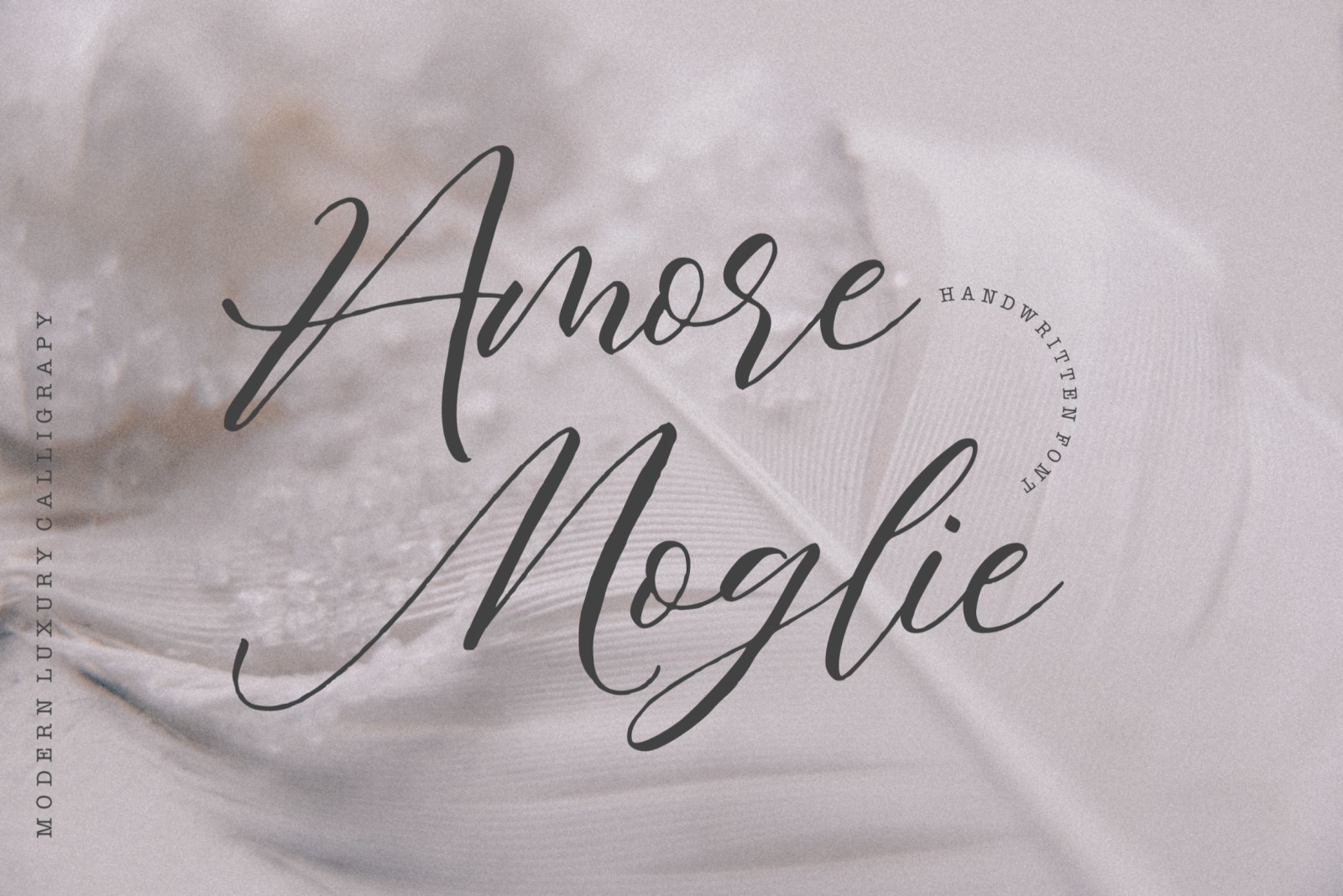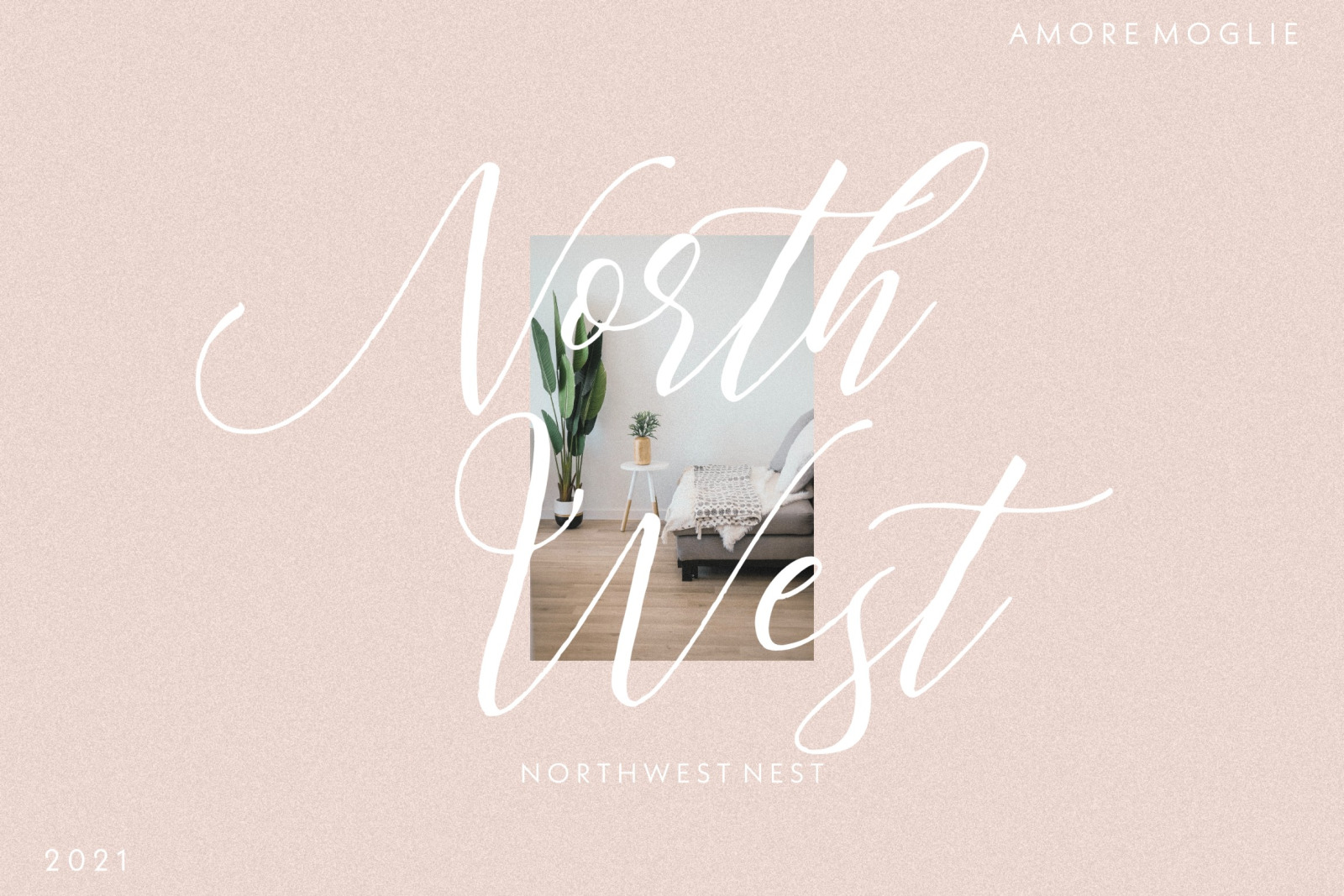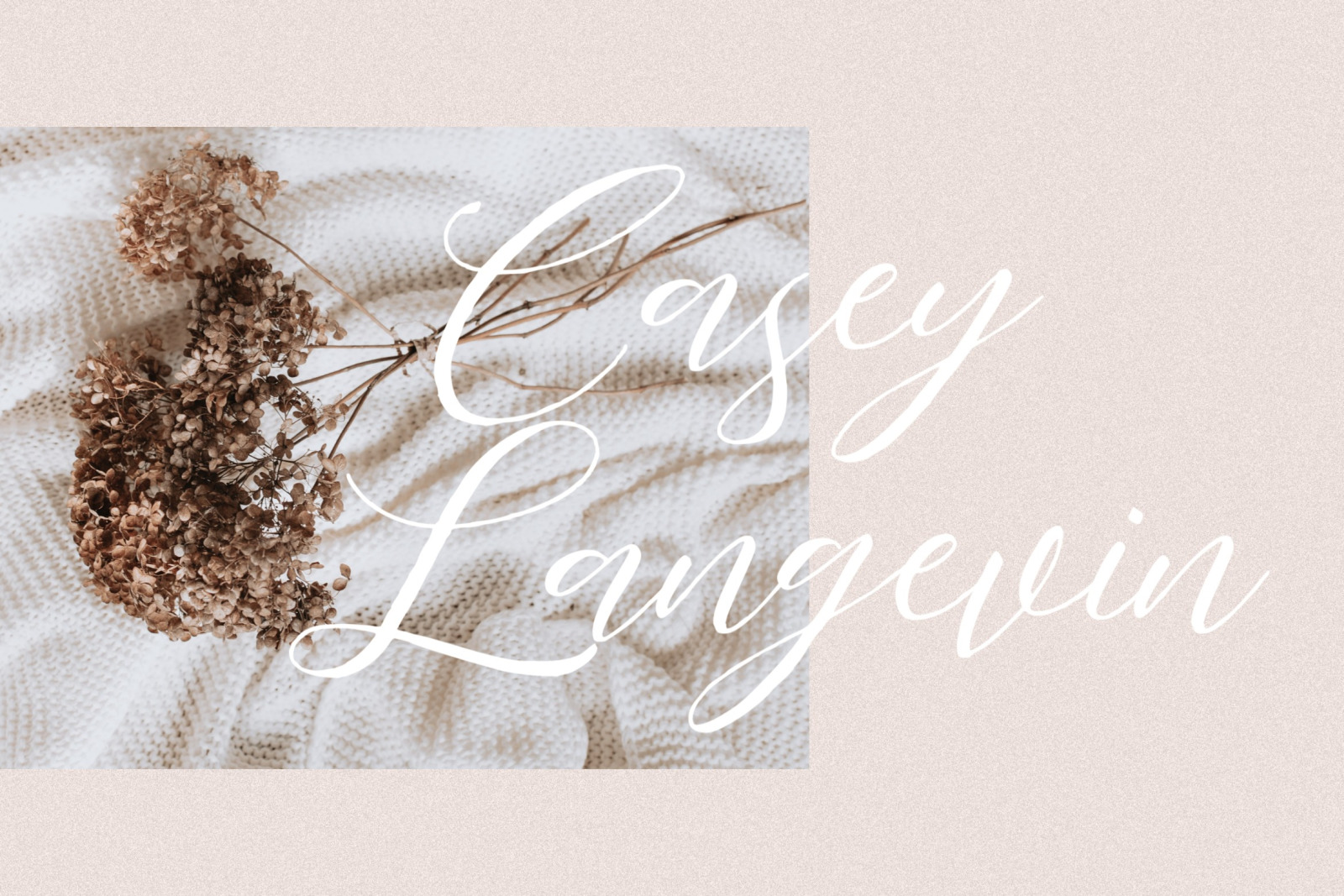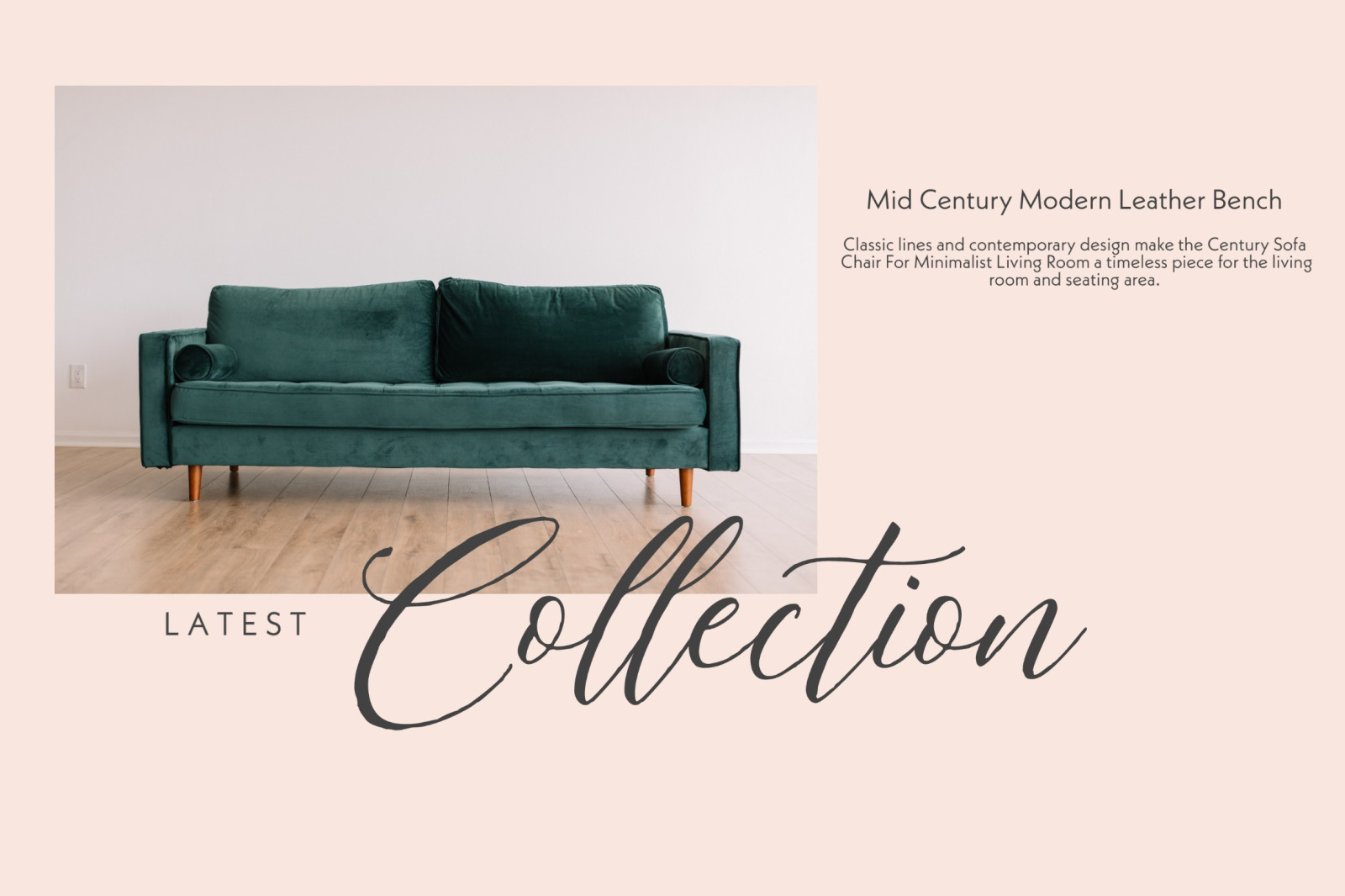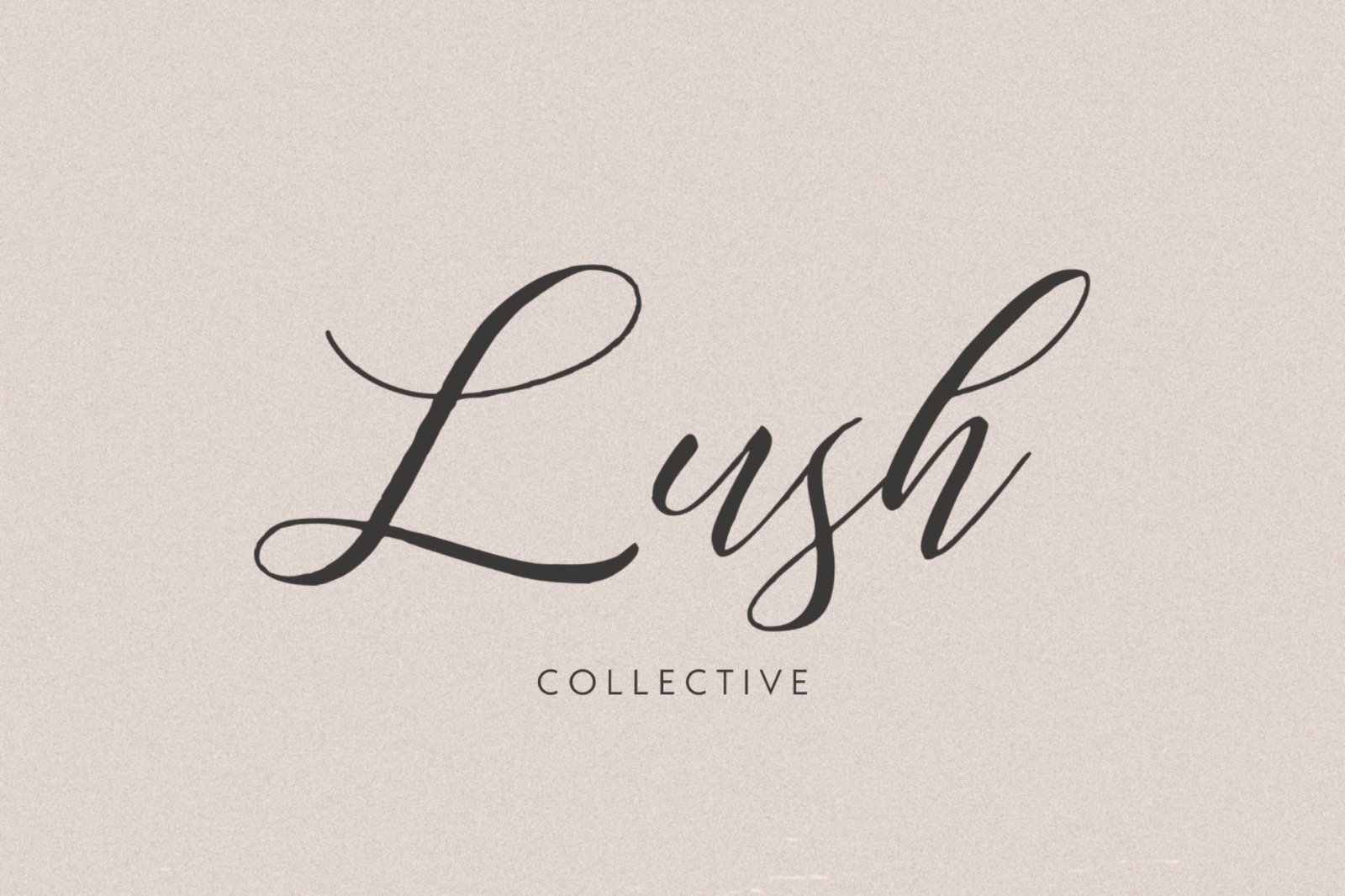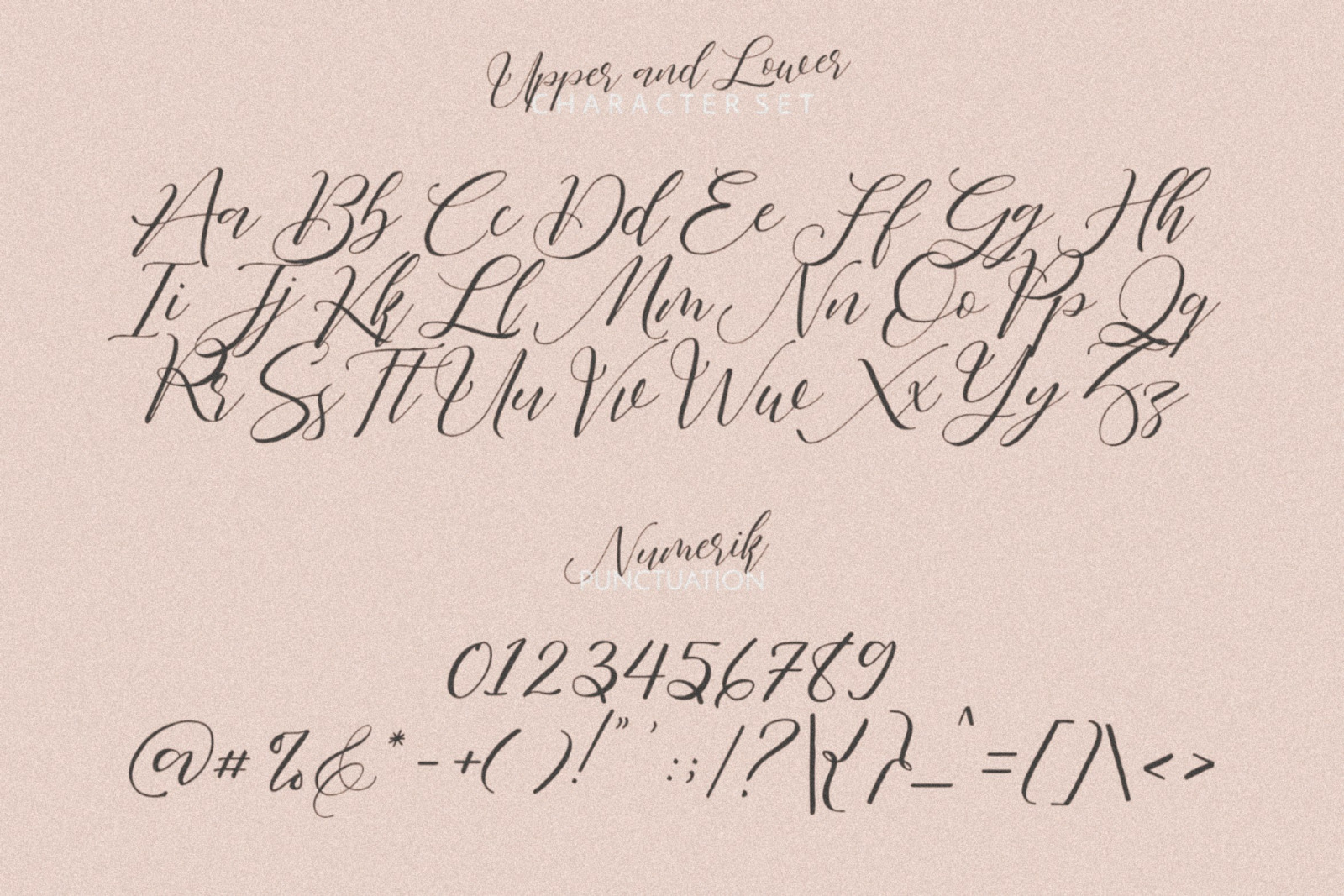
Amore Moglie - Handwritten Font
Amore Moglie - Modern Elegant Script Font by AF studio 25
introducing our new "Amore Moglie" Modern Calligraphy Script with Elegant Lovely Style is perfect for branding, logos, invitation, master heads, Canva and more.